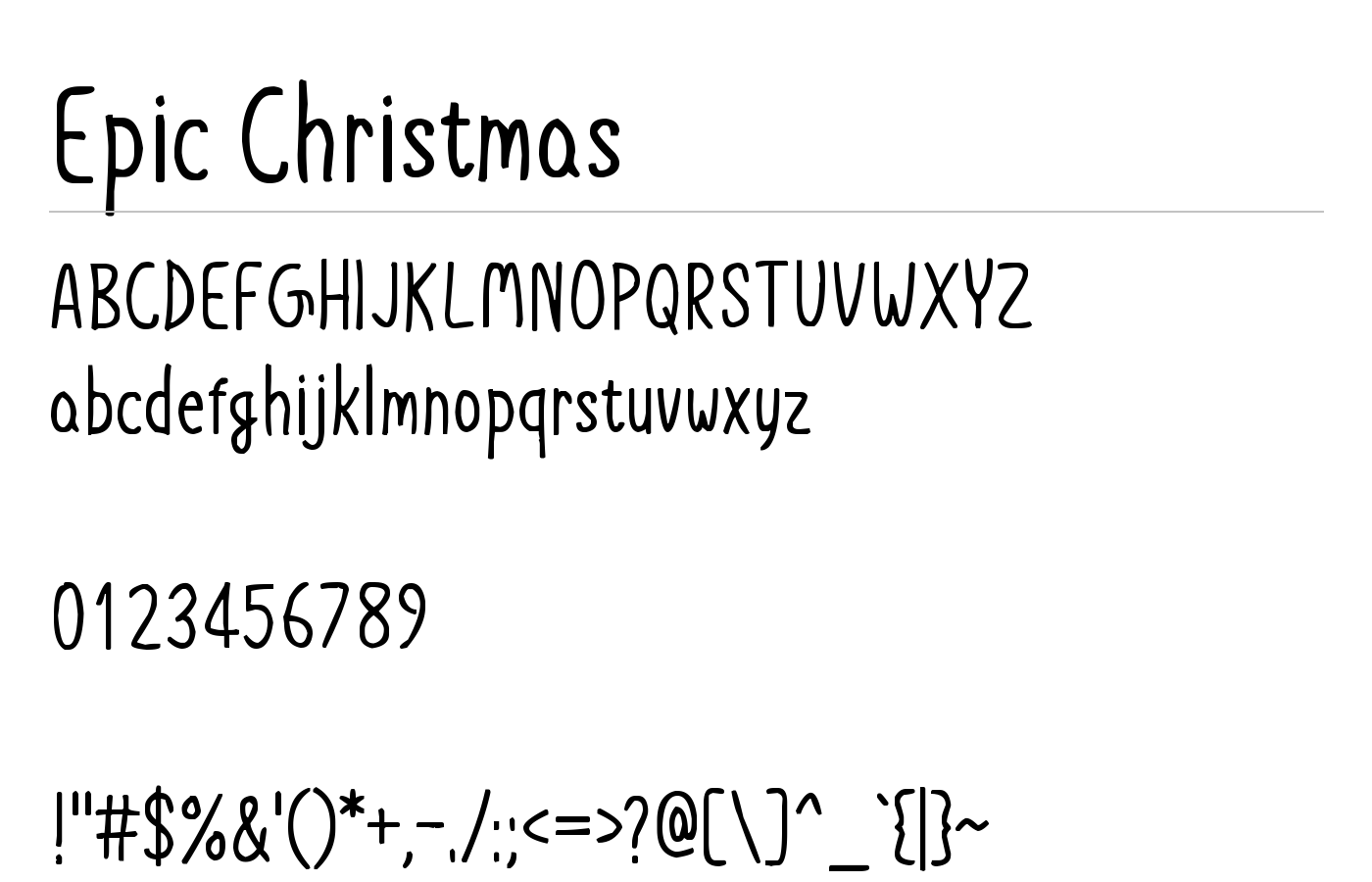
Epic Christmas Font is a whimsical, narrow sans serif with a hand-drawn feel, featuring tall, slightly irregular letterforms that add a playful and casual charm. Its light stroke weight and subtle variations make it perfect for festive, friendly designs aimed at creating a warm, approachable mood. This font works well for holiday cards, party invitations, children’s projects, and any creative work needing a personal and joyful touch.
Epic Christmas Font
About Epic Christmas Font